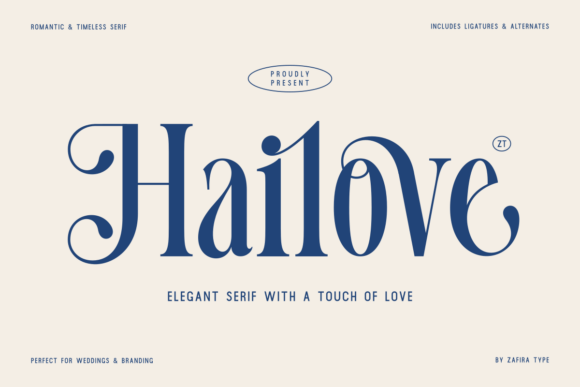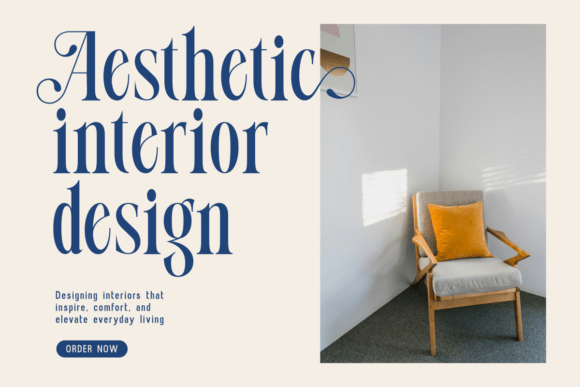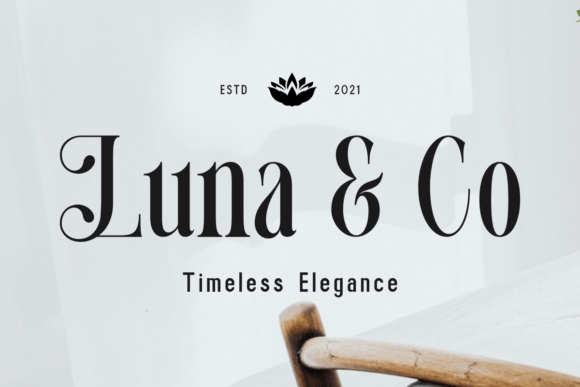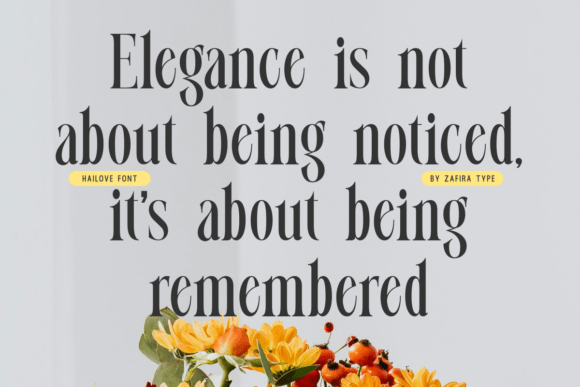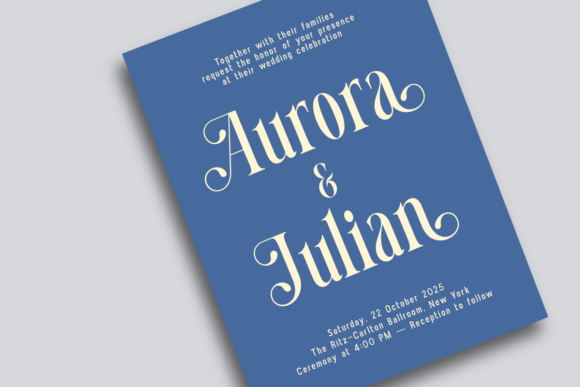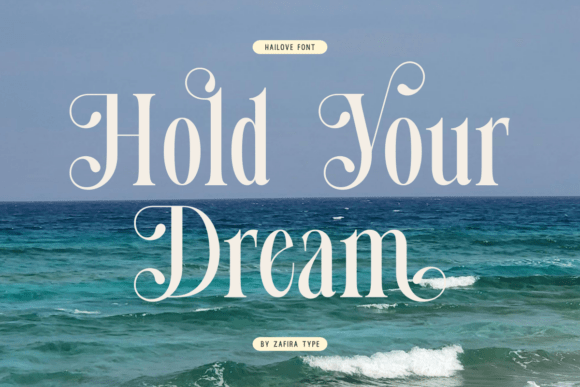
Introduction to Hailove Font
Have you ever found yourself lost in a sea of design possibilities, searching for the perfect font to elevate your creative project? That’s exactly where I was a few months ago, until I stumbled upon the Hailove Font. Its elegant serif style instantly caught my attention, and I knew I had to learn more about it. As I delved deeper, I discovered that this beautiful font is more than just a pretty face – it’s a valuable design resource that can add a touch of sophistication to any project.
What sets the Hailove Font apart is its perfect balance of classic style and modern flair. Each letter is carefully crafted with fine details and balanced proportions, making it not only luxurious but also highly legible. With its transparent background and free download option, it’s a high-quality design resource that’s accessible to designers of all levels.
Key Features of Hailove Font
- High-quality, professional design suitable for creative projects and personal use
- Includes a transparent background option for seamless integration into various design applications
- Supports various font sizes and resolutions, including standard and high-resolution designs for print and digital use
- Unique, stylish design elements that can be used to enhance and customize creative projects
Honest Review: Hailove Font
I recently stumbled upon the Hailove Font, and I must say it’s been a great addition to my design arsenal. The free download was a huge plus, as it allowed me to experiment with the font without breaking the bank.
What works well is the font’s versatility. It’s perfect for a creative project where you need a high-quality, modern look. I’ve used it for a variety of projects, from logos to graphics, and it always delivers. The transparent background option is also a nice touch, making it easy to customize and integrate with other design elements.
Here are some of the things I like about the Hailove Font:
- High-quality design that looks great in various contexts
- Transparent background option for easy customization
- Some users may find the font a bit too modern or trendy
- Not suitable for projects that require a more traditional or classic look
Overall, I’m really impressed with the Hailove Font. It’s a great design resource that’s perfect for creative projects. While it may have some limitations, it’s definitely worth checking out.
Hailove Font
The Hailove Font is a high-quality, free download design resource perfect for creative projects. Its unique style and transparent background make it an ideal choice for designers and artists looking to add a touch of elegance to their work.
Tips for Getting the Most Out of Hailove Font
For the best results, use the Hailove Font in conjunction with a high-quality image or design element. This will help to create a cohesive and visually appealing look.
The Hailove Font is perfect for a variety of creative projects, including wedding invitations, birthday cards, and social media graphics. Its elegant style and transparent background make it an ideal choice for designers and artists looking to add a touch of sophistication to their work.
Does the Hailove Font have a transparent background?
Yes, the Hailove Font features a transparent background, making it ideal for designers who want to create high-quality designs with a seamless look. This feature is especially useful when working with images or other design elements that require a transparent background.